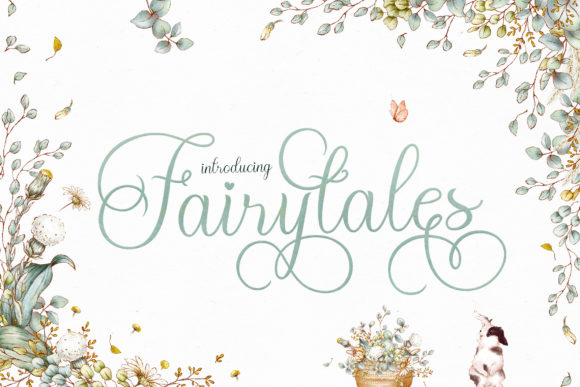
Introducing the enchanting Fairytales Script Font, designed by Salt and Pepper Fonts! If you're in search of the perfect font for your next project, look no further. Fairytales Script is a beautiful script font that will add a touch of elegance and sophistication to your designs.
This font is the perfect choice for anyone who wants to elevate their handwriting skills, especially for those who love to write in PDF format. It's no surprise that Fairytales Script is the Best Font For Handwriting Pdf. With its contemporary style and impeccable form, this font is perfect for a variety of projects, from wedding invitations to branding materials.
One of the best things about Fairytales Script is its balance and variety. It's not too thin, nor too thick, making it perfect for creating a balanced and harmonious design. This font is also PUA encoded, which means you can access all of the glyphs and swashes with ease!
Whether you're a graphic designer, a calligrapher, or someone who just loves beautiful handwriting, Fairytales Script is a font that you won't want to miss. It will help you create stunning designs that are sure to impress your clients, friends, and family.